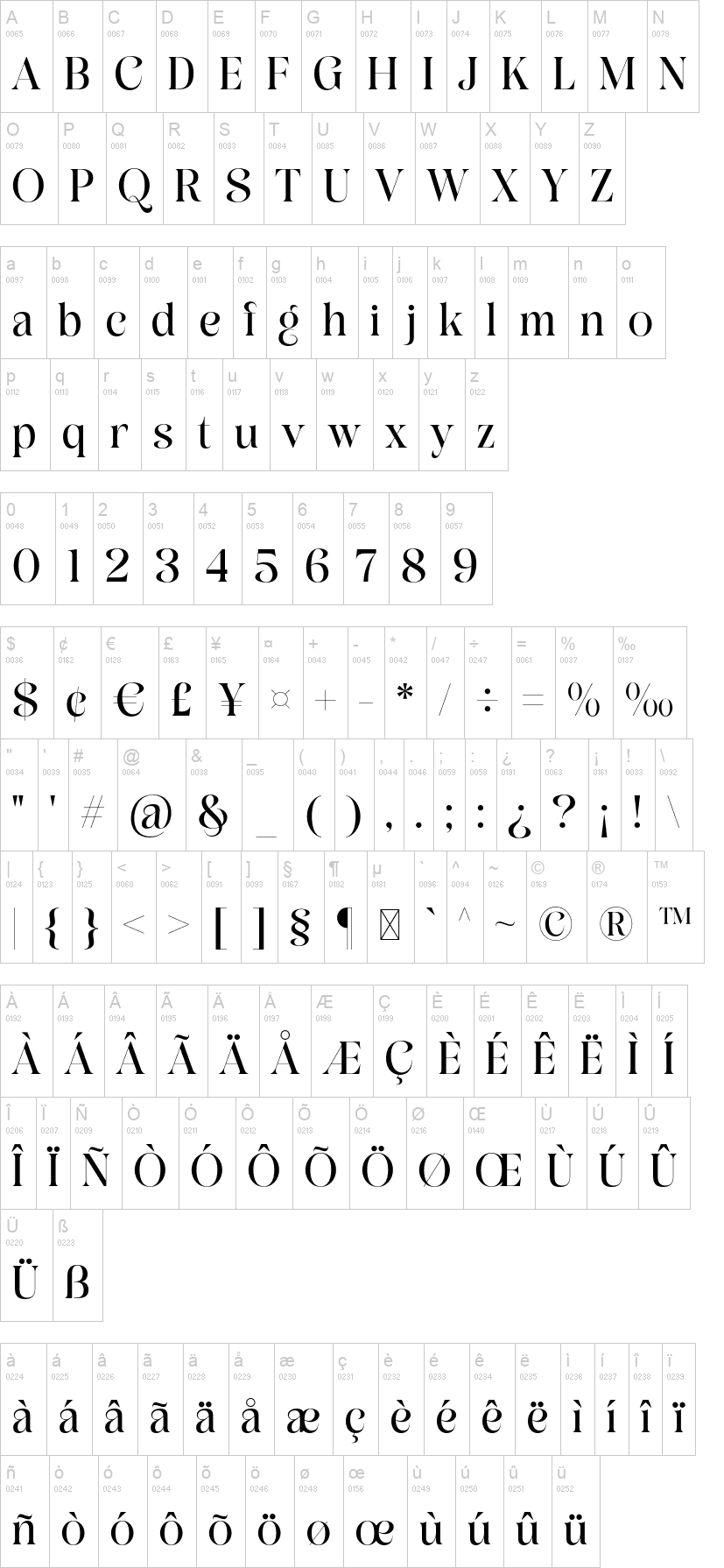
Meet Swingly Lours, the epitome of serif elegance enriched with
magnificent ligatures and a plethora of alternates. This font
transforms your typography into a visual symphony, striking the
perfect balance between classic sophistication and contemporary
creativity.